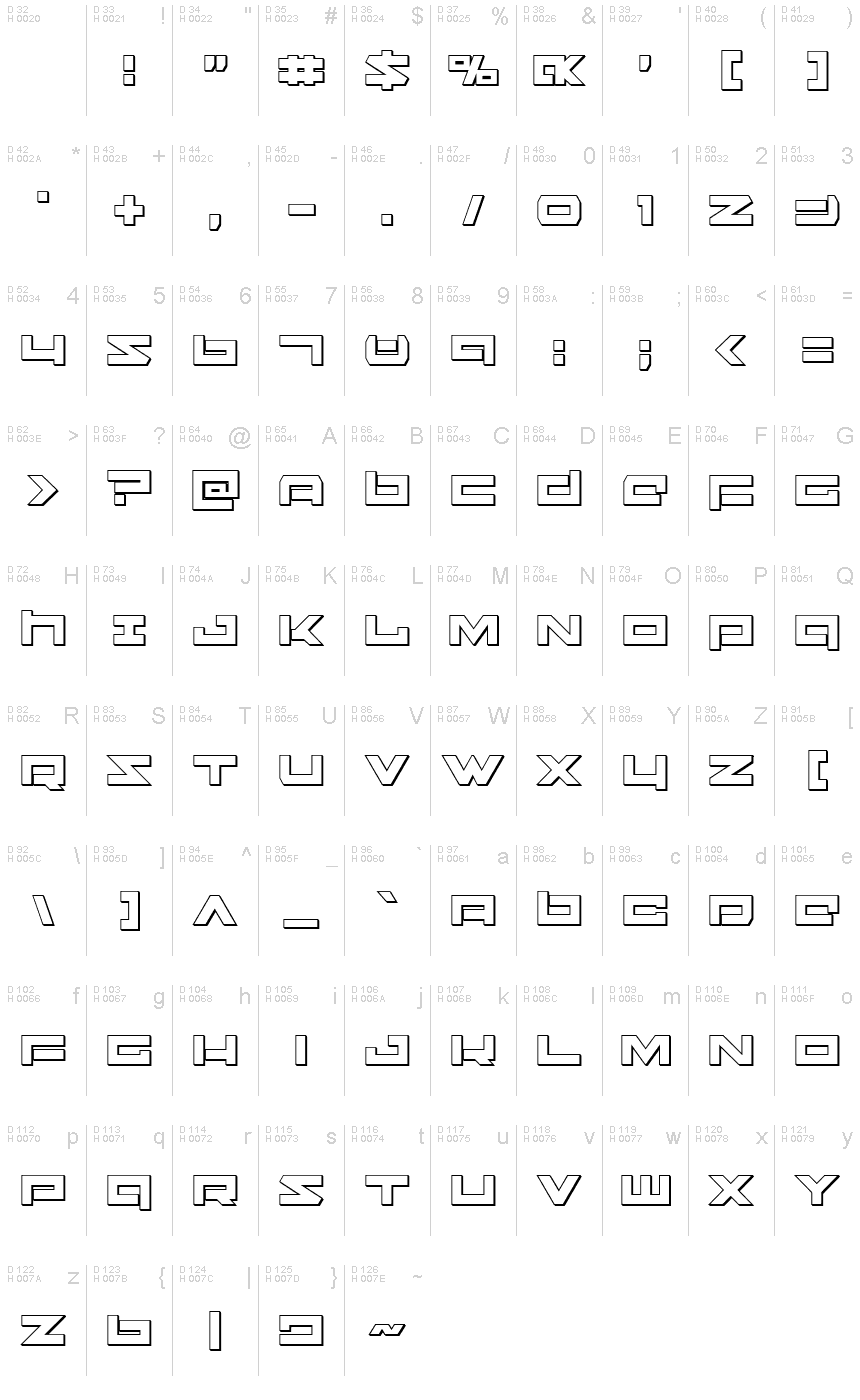
Ninjabot 3D
Ninjabot 3D is a bold and captivating display font created by Iconian Fonts.
Its 3D techno style adds depth and dimension to any project, making it perfect for futuristic designs, gaming logos, tech-themed websites, or sci-fi movie posters. With its extra-expanded width, Ninjabot 3D commands attention and exudes a sense of power. Whether you're designing an edgy album cover or crafting an eye-catching signage, this versatile font will effortlessly elevate your creative endeavors to the next level.
Unleash the boldness of Ninjabot 3D and make your projects stand out from the crowd.